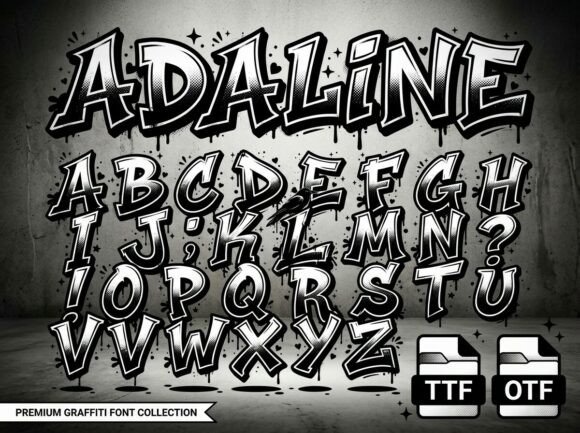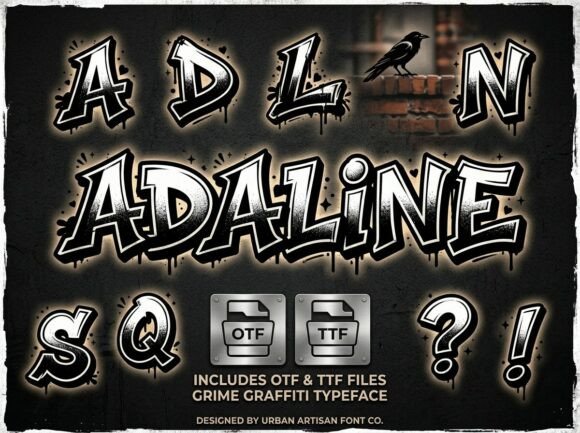
Introducing Adaline Font: The Ultimate Decorative Display Font
Are you tired of using the same old fonts for your designs? Look no further than Adaline Font, a stunning decorative display font that’s sure to turn heads. With its unique artistic elements and strong visual personality, this font is perfect for creators who want to break away from the ordinary and make a statement.
What Makes Adaline Font Special?
Adaline Font is a versatile decorative display font that’s designed to be the center of attention. Its unique artistic elements and strong visual personality make it perfect for a variety of design projects, from bold headlines and artistic logos to creative packaging and decorative initials. Whether you’re a designer, craftier, or DIY enthusiast, this font is sure to elevate your designs to the next level.
Key Features of Adaline Font
- Unique Artistic Elements: Adaline Font features unique artistic elements that set it apart from other fonts. Each letter is carefully crafted to make a statement and add a touch of elegance to your designs.
- Strong Visual Personality: This font has a strong visual personality that’s sure to grab attention. Its bold and eye-catching design makes it perfect for headlines, logos, and other design elements that need to stand out.
- Versatile: Adaline Font is versatile enough for a variety of design projects, from bold headlines and artistic logos to creative packaging and decorative initials.
- Professional and Polished Finish: Despite its bold and artistic design, Adaline Font maintains a professional and polished finish that’s perfect for high-end designs.
⚠️ IMPORTANT NOTE BEFORE PURCHASE: Adaline Font is an ALL-CAPS (Uppercase Only) display typeface. It does not include lowercase letters. It is specifically designed for high-impact headlines, logos, and decorative initials where every letter is a work of art. Please make sure you understand this before making a purchase.
Why Choose Adaline Font?
There are many reasons why Adaline Font is the perfect choice for designers and crafters. Here are just a few:
- Stand Out from the Crowd: With its unique artistic elements and strong visual personality, Adaline Font is sure to make your designs stand out from the crowd.
- Elegance and Sophistication: This font adds a touch of elegance and sophistication to any design, making it perfect for high-end designs and luxury brands.
- Versatility: Adaline Font is versatile enough for a variety of design projects, from bold headlines and artistic logos to creative packaging and decorative initials.
- Professional Quality: This font is designed to high professional standards, ensuring that your designs look polished and professional.
In conclusion, Adaline Font is a stunning decorative display font that’s perfect for designers and crafters who want to make a statement. With its unique artistic elements, strong visual personality, and versatility, this font is sure to elevate your designs to the next level. So why wait? Purchase Adaline Font today and start creating stunning designs that turn heads!